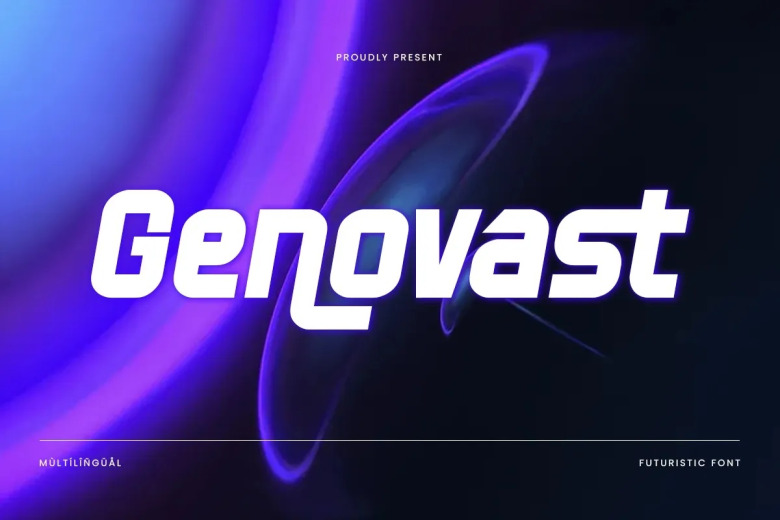
Genovast Font
Genovast is a futuristic modern, minimalist sans serif font. It is a versatile sans serif that may be employed for assorted style options such as logos or headlines. Ideally suited to your requirements and helps achieve attractive results for your project!
Genovast Sans Serif Font